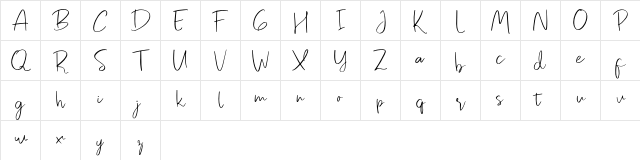
Pastelyn Demo Regular
Design Context for Pastelyn Demo Typeface
Pastelyn Demo is a composed and adaptable typeface that performs quietly and consistently across a wide range of design contexts.